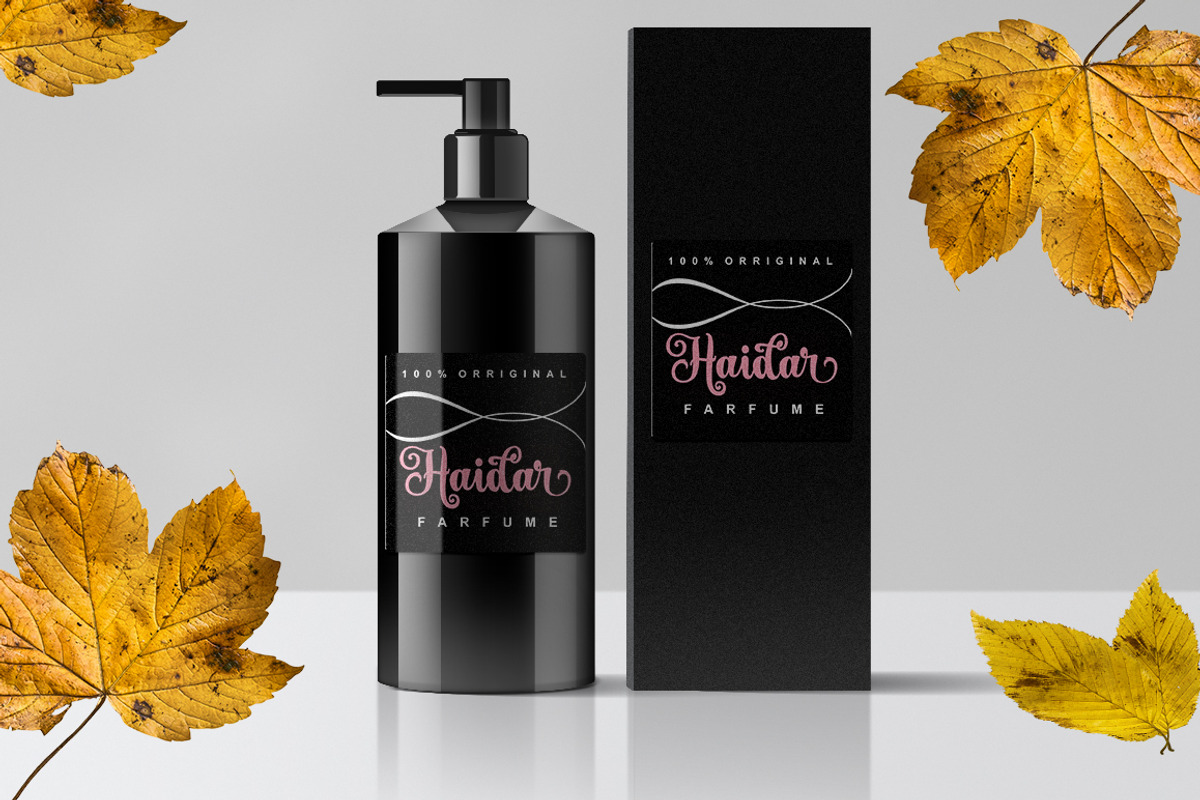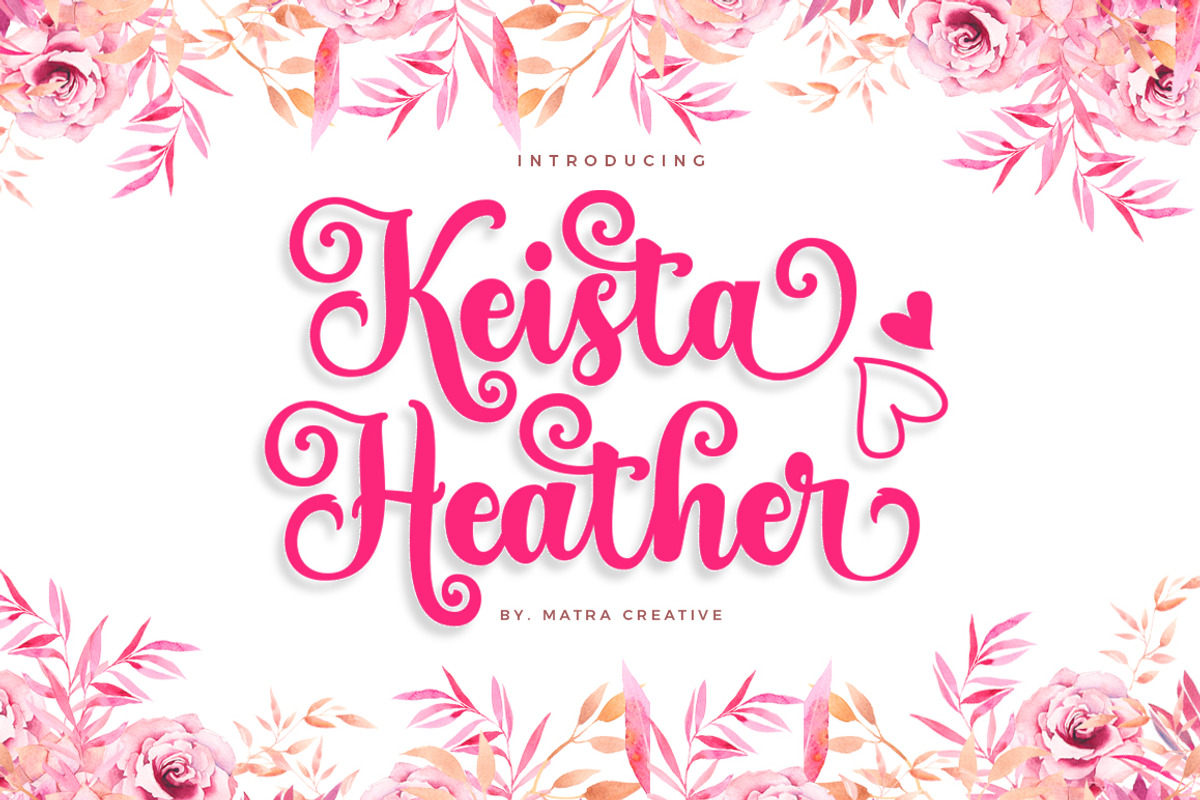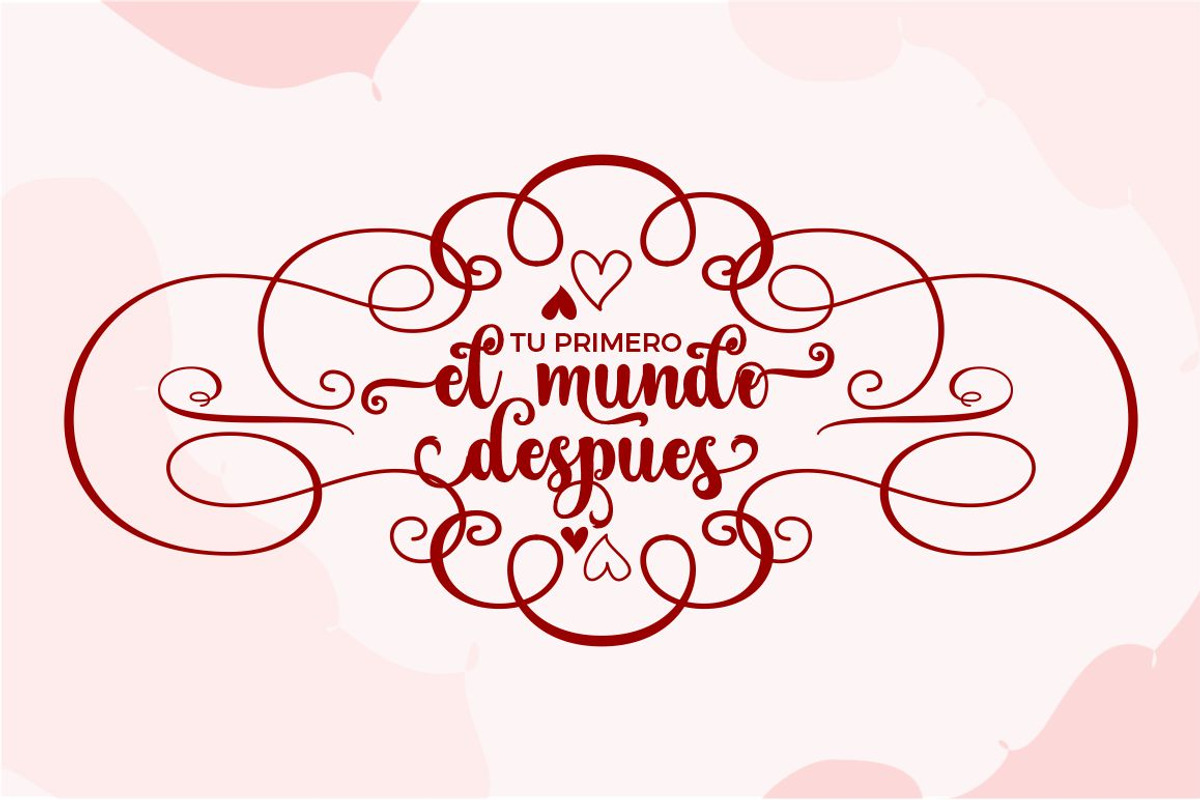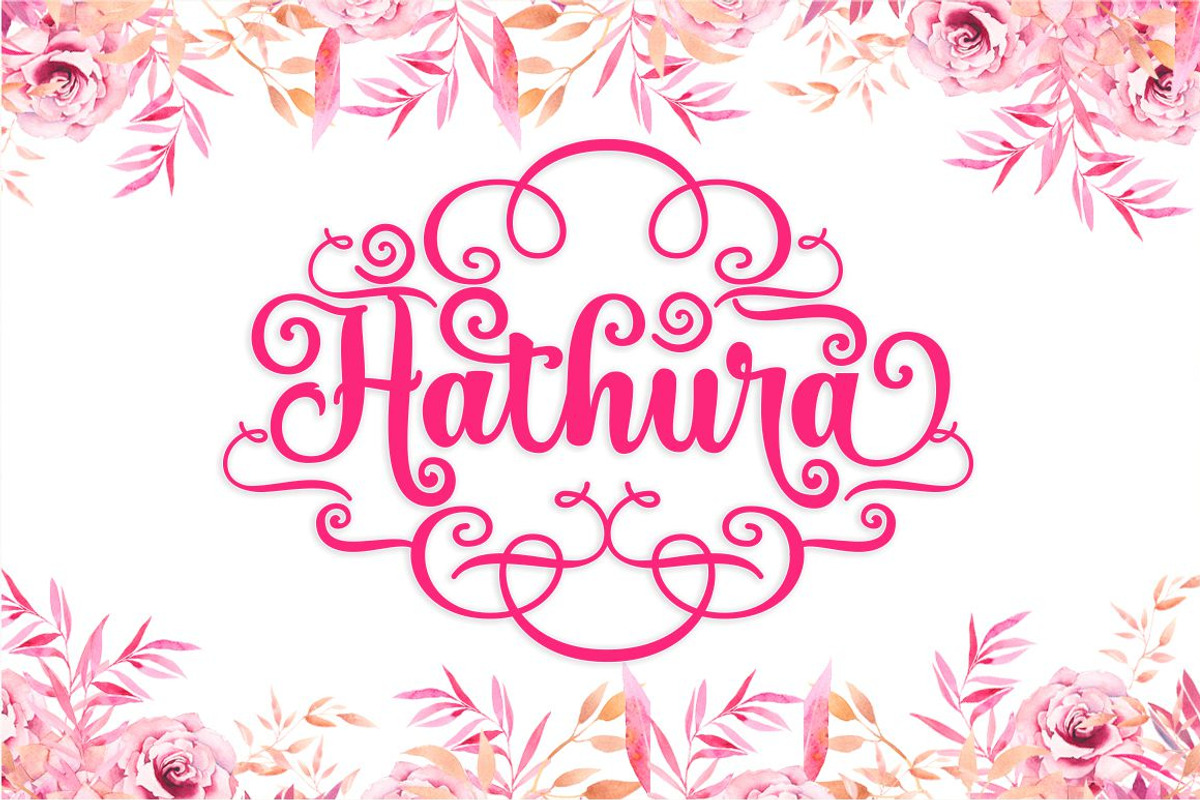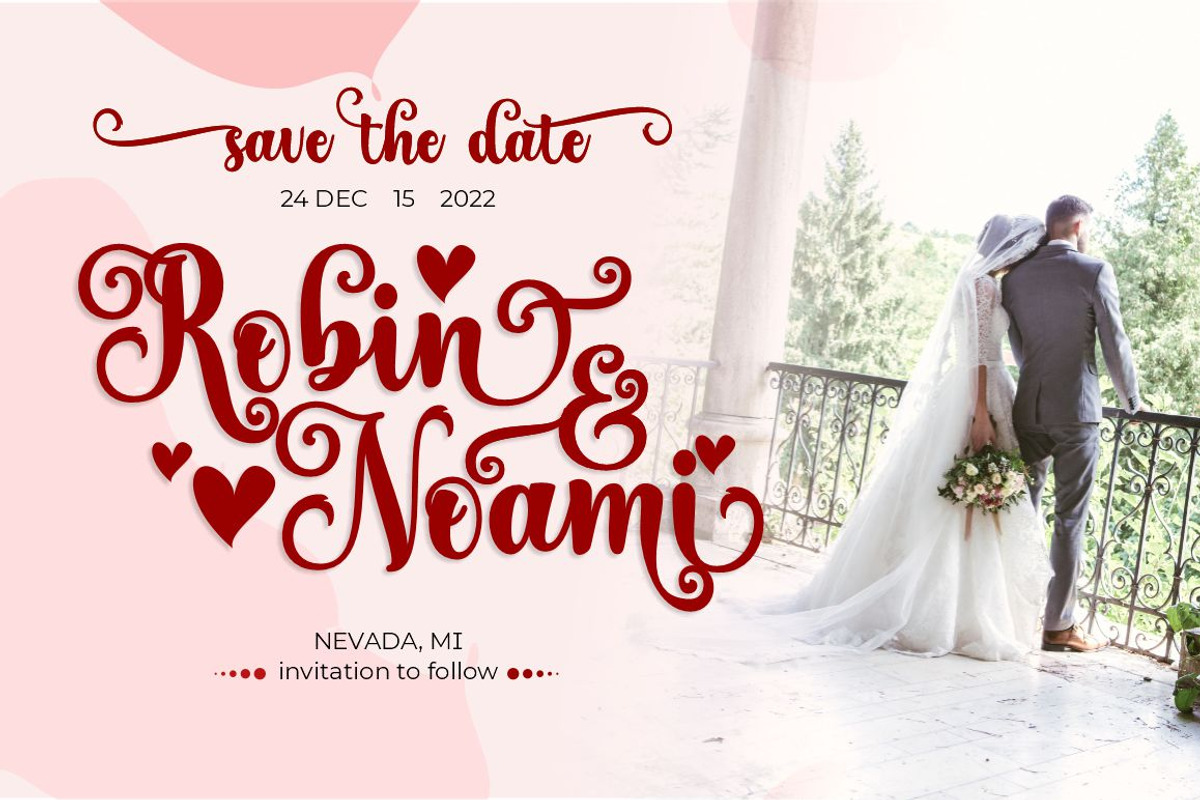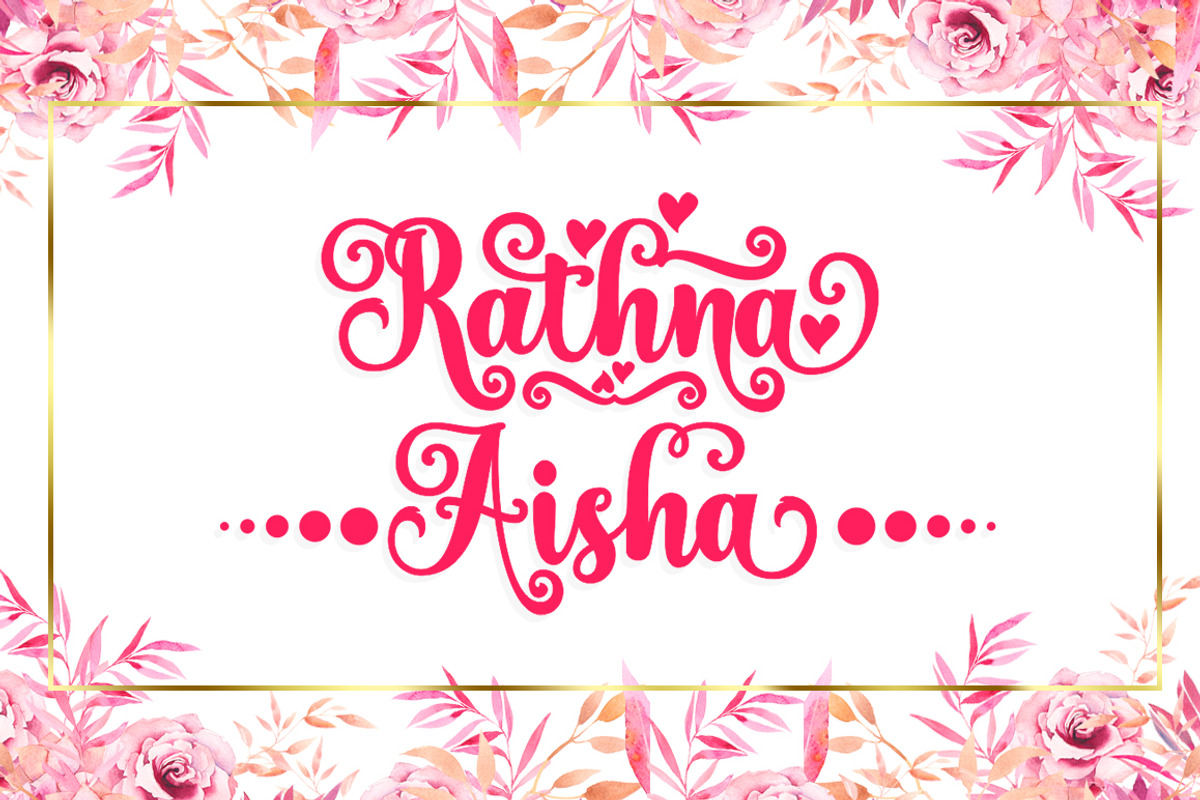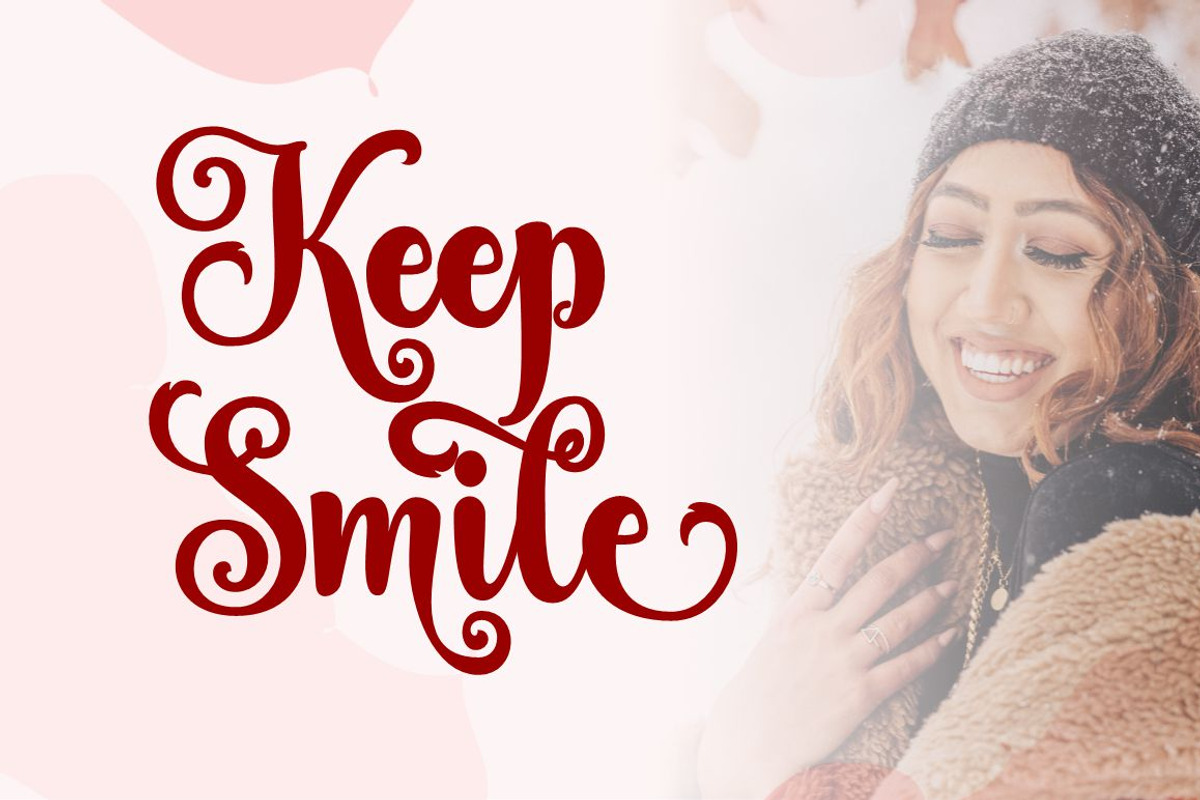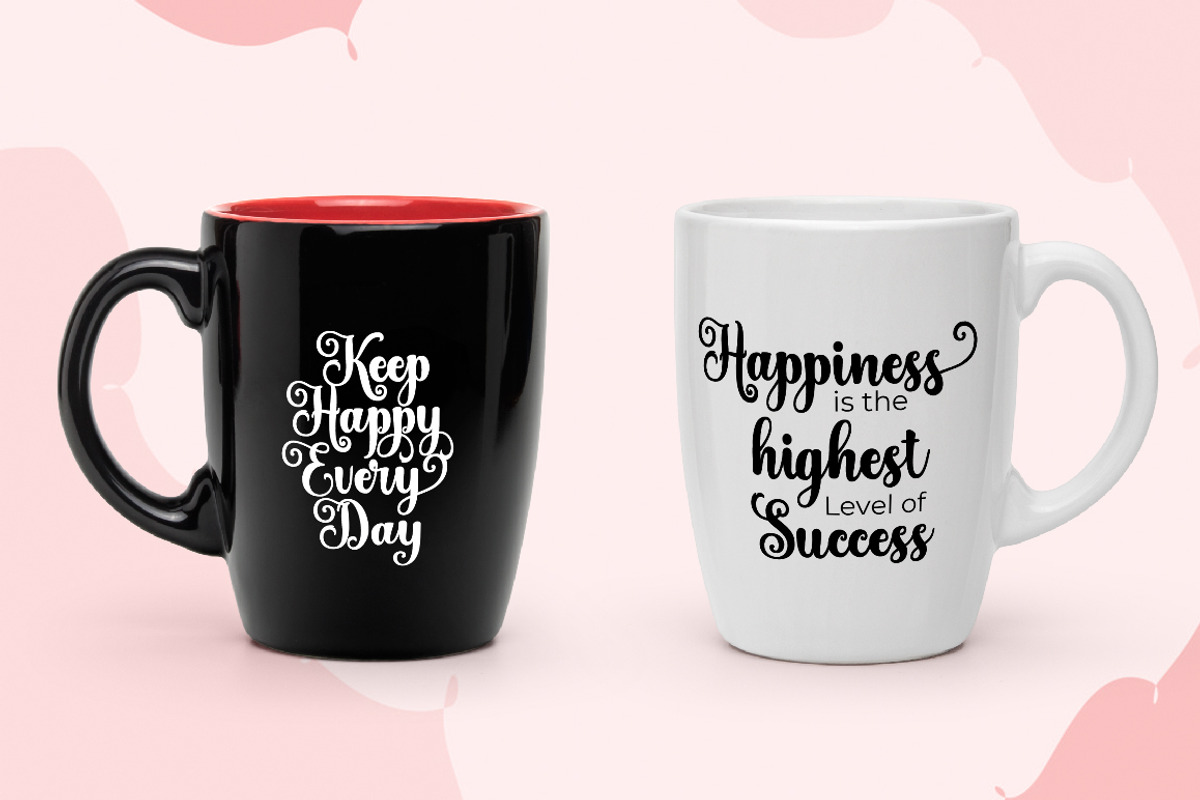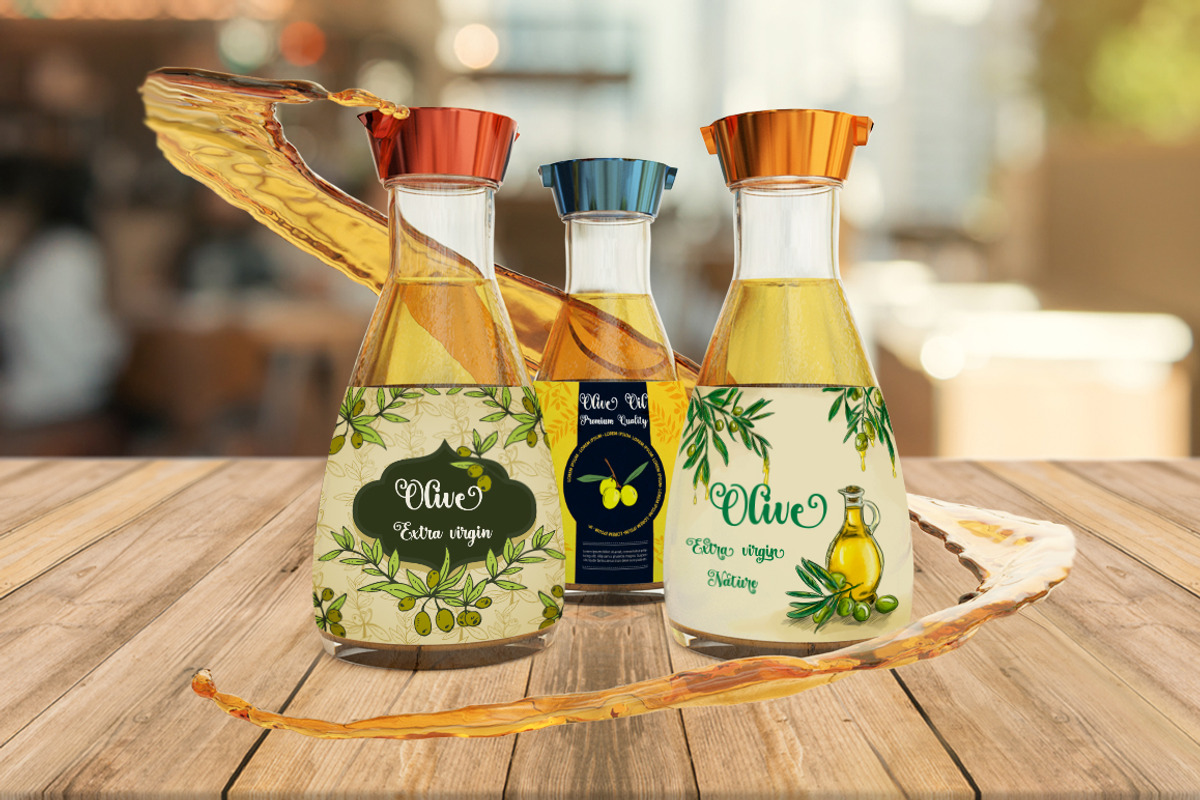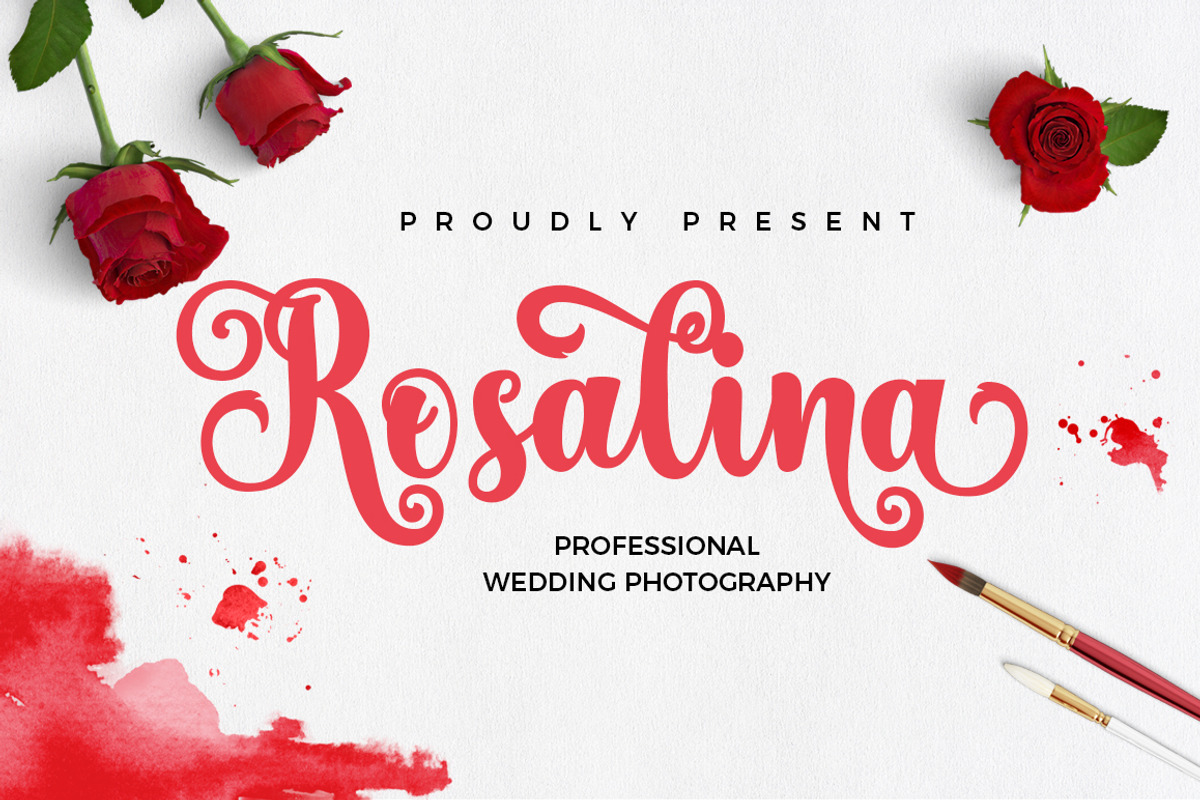
Keista Heather
Keista Heather brings her own unique style to every design project. This fantastic script font is best suited for headers of all sizes, and for blocks of text that have maximum and minimum variations. Whether it's for the web, printing, motion pictures, or anything else – Keista Heather would look spectacular. This font is PUA coded which means you can access all the cute glyphs and swashes with ease! It also has many special features including alternate glyphs and ornaments.